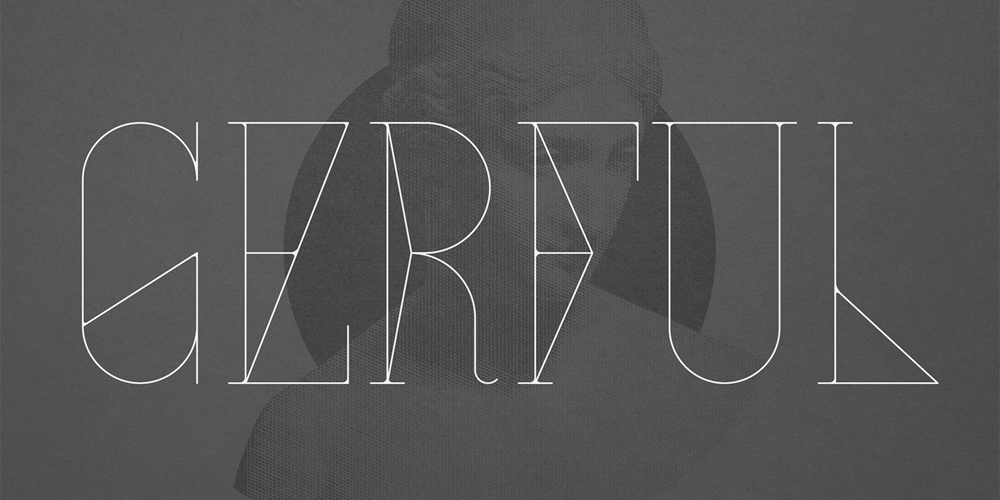
Gerful Font Family was designed by Vladimir Fedotov, Plamen Petrov and published by VP Creative Shop. Gerful contains 2 styles and family package options. Introducing Gerful – Creative Display TypefaceGerful is geometric and creative font with multilingual support. It’s a very versatile font that works great in large and small sizes.Gerful is perfect for branding projects, home-ware designs, product packaging, magazine headers – or simply as a stylish text overlay to any background image.FEATURES Uppercase, numeral, punctuation & Symbol Regular Italic Multilingual support No special software is required to type out the standard characters of the Typeface. Canva friendly Feel free to contact me if you have any questions!Mock ups and backgrounds used are not included.Thank you! Enjoy!